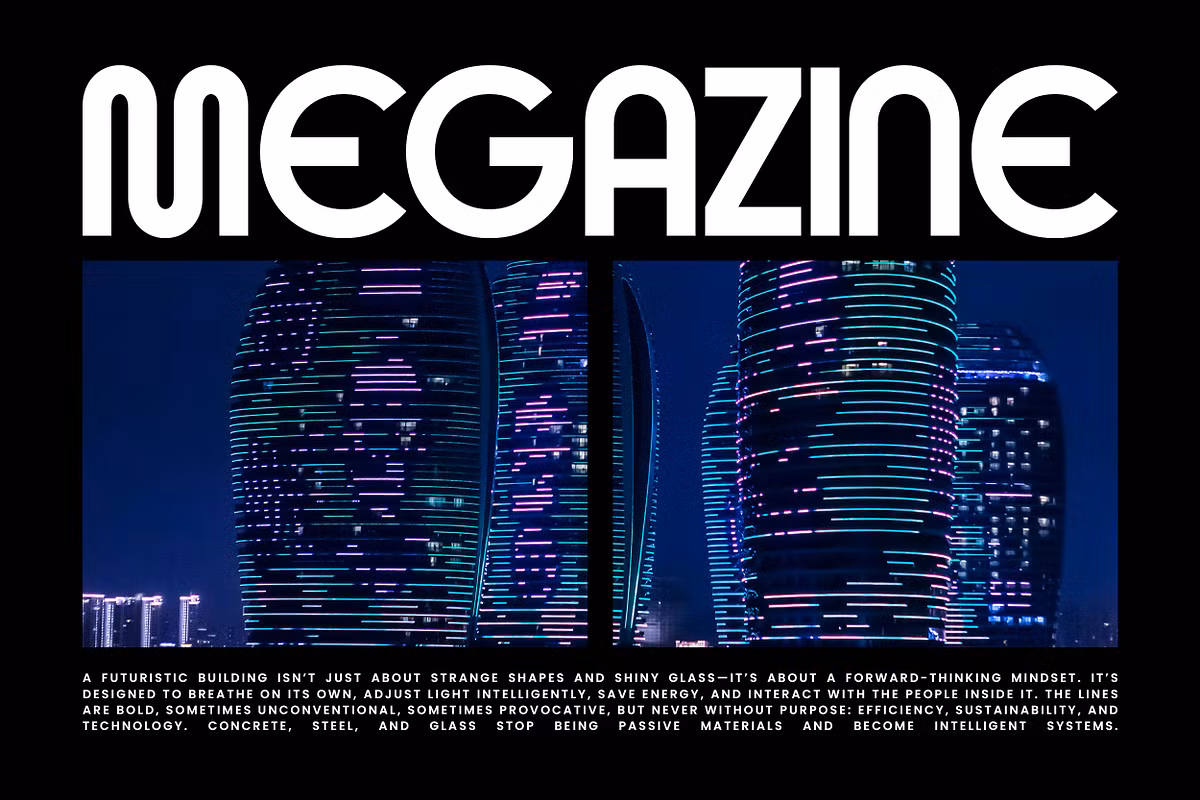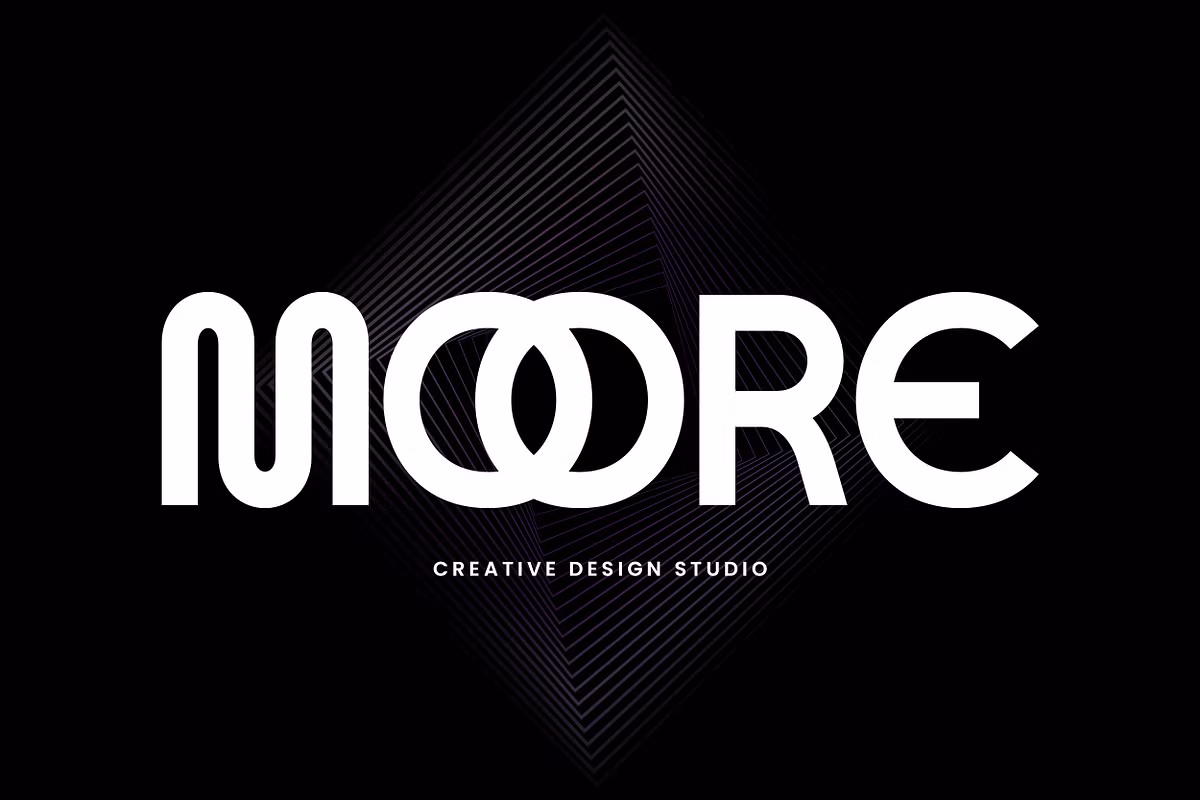
Magox: Bold and Modern Sans Serif Typeface for Versatile Design
Magox – Unique Modern Sans Serif
Magox: Bold and Modern Sans Serif Typeface for Versatile Design
Introducing Magox: A Modern Sans Serif Typeface
Magox is a modern sans-serif font that looks really clean and sleek. It’s got simple shapes and smooth curves that make it easy to read and nice to look at. This makes it a great choice for companies that want their message to be clear and look fresh. With its rounded edges and consistent style, Magox stands out from other digital fonts and has a unique personality that’s both professional and friendly. It’s perfect for brands that want to communicate in a way that’s both modern and approachable. The way it’s designed makes it easy to use in lots of different situations, from big headlines to small text, and it always looks great. Overall, Magox is a great font for anyone who wants to make a good impression with their words.
Modern sans-serif font example Magox
An example of the Magox typeface in use.
Design Style of Magox
The Magox design is all about being bold and modern. It uses smooth curves and geometric shapes to create a look that’s both eye-catching and easy to look at. The font is different from traditional sans-serif fonts, which are often too rigid. This gives Magox a friendly and contemporary feel. That’s why it’s great for branding that wants to make a lasting impression. The way it looks is perfect for companies that want to seem fresh and exciting. Magox is a great choice for anyone who wants a design that’s both stylish and modern. Its unique look makes it stand out from other designs, and its boldness grabs people’s attention. Overall, Magox is a great design for anyone who wants to make a statement with their brand.
Magox has a good balance of letter height and the parts that stick up, which makes it easy to read. This is important for both printed and digital things. The small details, like the way letters connect and the special shapes of the characters, add a bit of personality and make it stand out from other plain sans-serif fonts. It looks clear and elegant whether it’s used for big headings or small text.
Character Sets and Versatility
One of the standout features of Magox is its extensive character set. It includes both uppercase and lowercase letters, numerals, and a variety of punctuation marks. This comprehensive range ensures that you can express any message clearly and effectively.
Character set of Magox typeface
Showcasing the extensive character set of Magox.
Magox is a great choice for companies that want to reach people who speak different languages. It can be used in many languages, which makes it very useful for big brands that want to talk to people all around the world. The way the letters connect to each other, called ligatures, makes the text look nicer and easier to read. This is especially important for companies that want to look professional and creative in their branding and design. It helps to make the text flow better and look more polished, which is great for things like logos and advertisements.
Use Cases for Magox
Magox is an incredibly versatile typeface that can be employed across a variety of design contexts. Here are some use cases where Magox truly shines:
• Brand Identity: Whether you’re starting a new business or rebranding an existing one, Magox can help create a cohesive brand identity that resonates with your target audience.
• Logos and Wordmarks: The boldness of Magox makes it perfect for logos that need to stand out. Its modern design ensures that your brand feels up-to-date and relevant.
• Editorial and Headlines: In editorial design, Magox excels in conveying messages effectively, making it a great choice for magazine headlines or article titles.
Promotional materials designed with Magox
Magox used in promotional materials for effective communication.
When it comes to creating promotional materials, Magox is a great option because it’s really good at grabbing people’s attention without being too hard to read, even from far away. This makes it perfect for things like posters and packaging for products, where you want to stand out and be clear at the same time.
Web and UI Design: In the digital realm, Magox adapts seamlessly to various screen sizes, ensuring a consistent user experience across websites and applications.
Social Media Content: With the rise of visual storytelling on platforms like Instagram and Facebook, Magox enhances your social media posts, making them visually appealing and engaging.
Pairing Suggestions for Magox
To maximize the impact of Magox in your designs, consider pairing it with complementary typefaces. Here are some suggestions:
• Serif Fonts: Pairing Magox with a classic serif typeface, such as Times New Roman or Georgia, can create a striking contrast that highlights the modernity of Magox while adding a touch of tradition.
• Thin Sans-Serif Fonts: For a really simple look, you can pair Magox with a thin sans-serif font like Lato or Open Sans. This combination creates a clean and elegant feel. It’s great for when you want to keep things minimal. The thin lines of these fonts work well with Magox, making your design look sleek and modern.
• Display Fonts: Use a decorative display font alongside Magox for headlines or calls to action. This combination can enhance visual interest while keeping the overall design balanced.
Magox is a really modern and stylish font that works well for lots of different design projects. It’s got simple shapes, smooth curves, and some unique letters that make it perfect for things like branding, magazines, and websites. Because it’s so flexible and has lots of features, Magox doesn’t just make your projects look better – it also helps get your message across in a clear and confident way. By using Magox, you can give your typography a professional touch that will make it stand out. It’s a great choice for anyone who wants to make a good impression with their design. With Magox, you can create a strong visual identity that will help your brand succeed. So why not try Magox today and see how it can elevate your design to the next level?